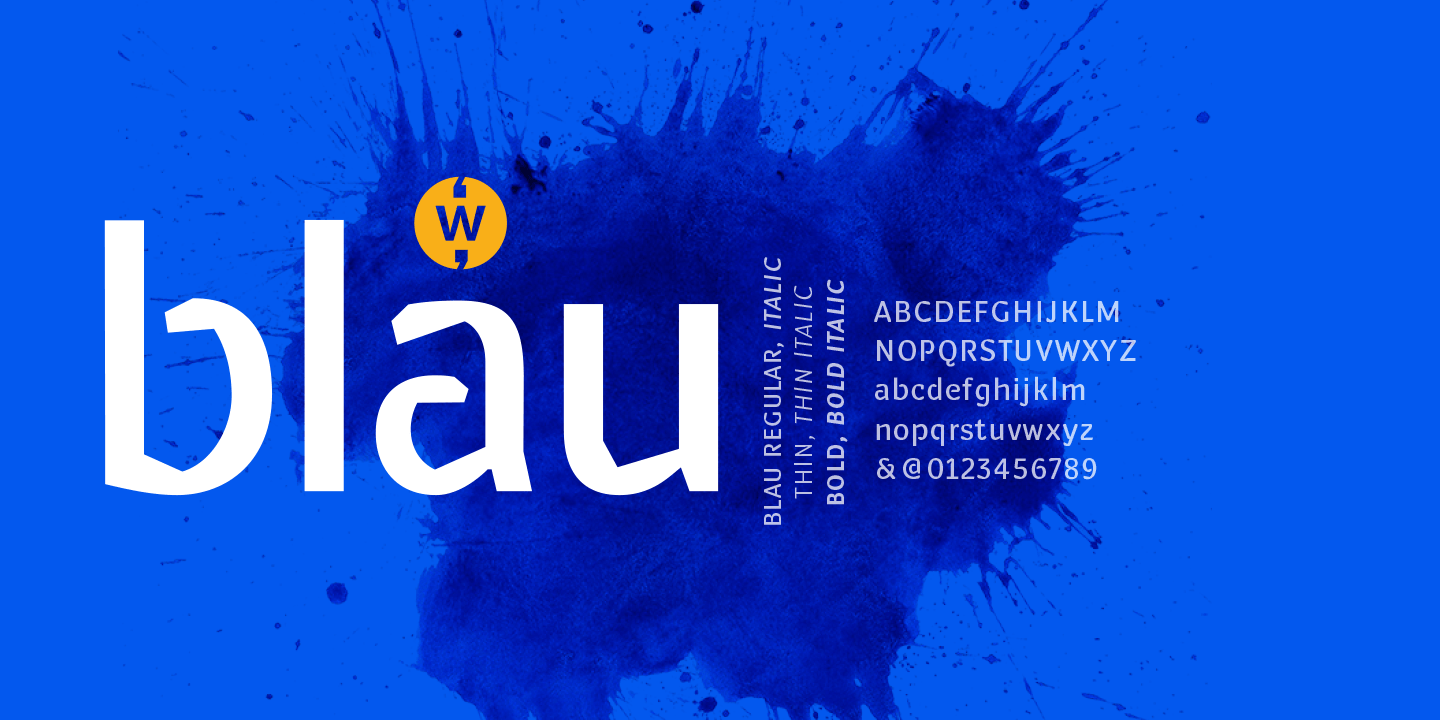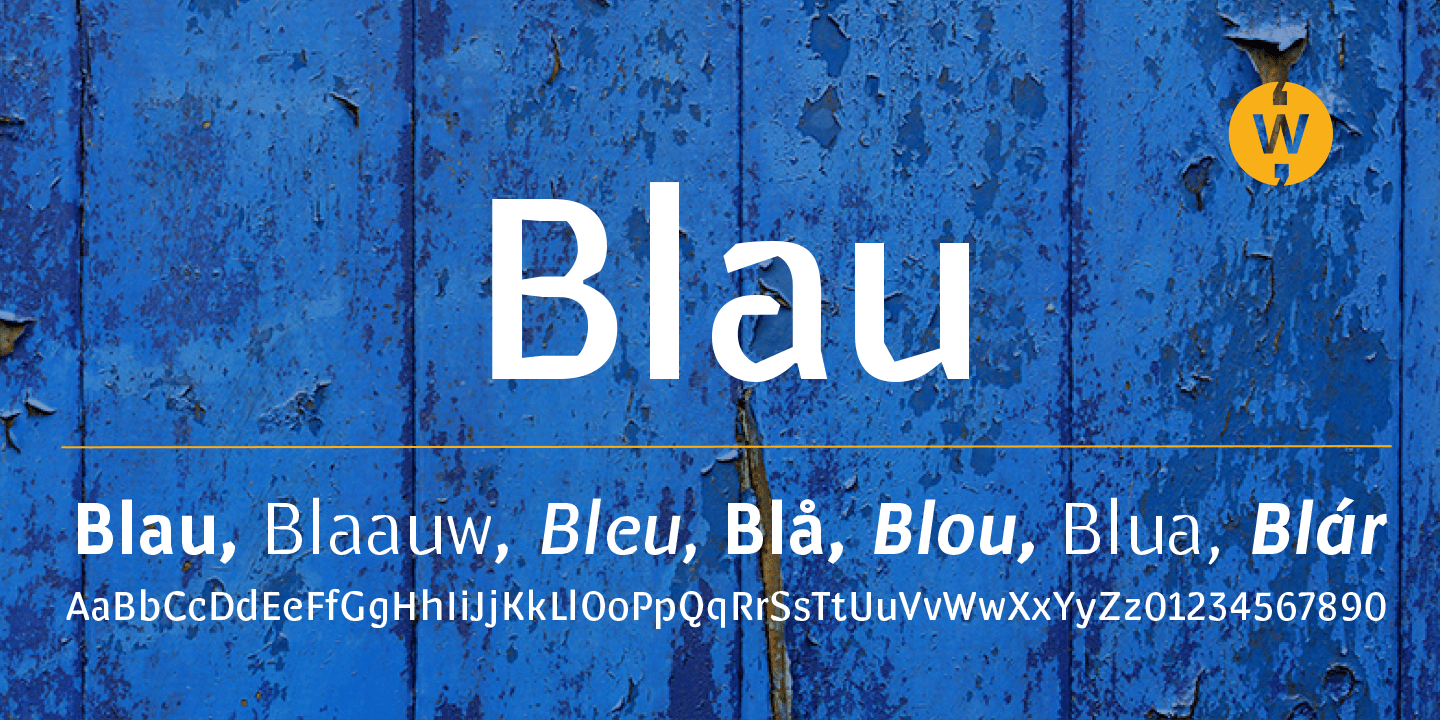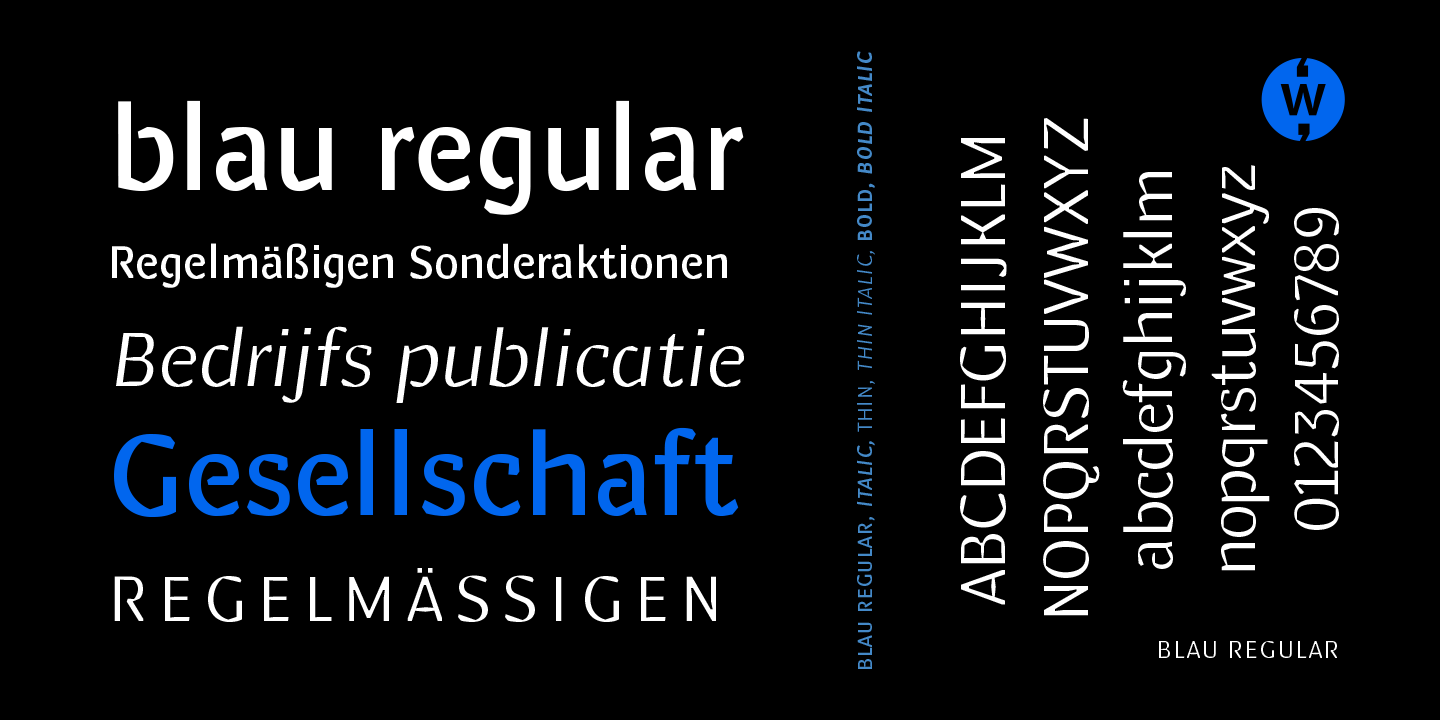
About Blau
Designed with a hand-chiseled feel, Blau\’s sculpted characters add a refined personality to a wide range of brand, corporate, product and service applications. Highlighting the sculpted theme, inkwell treatment variations are prevalent throughout Blau,…